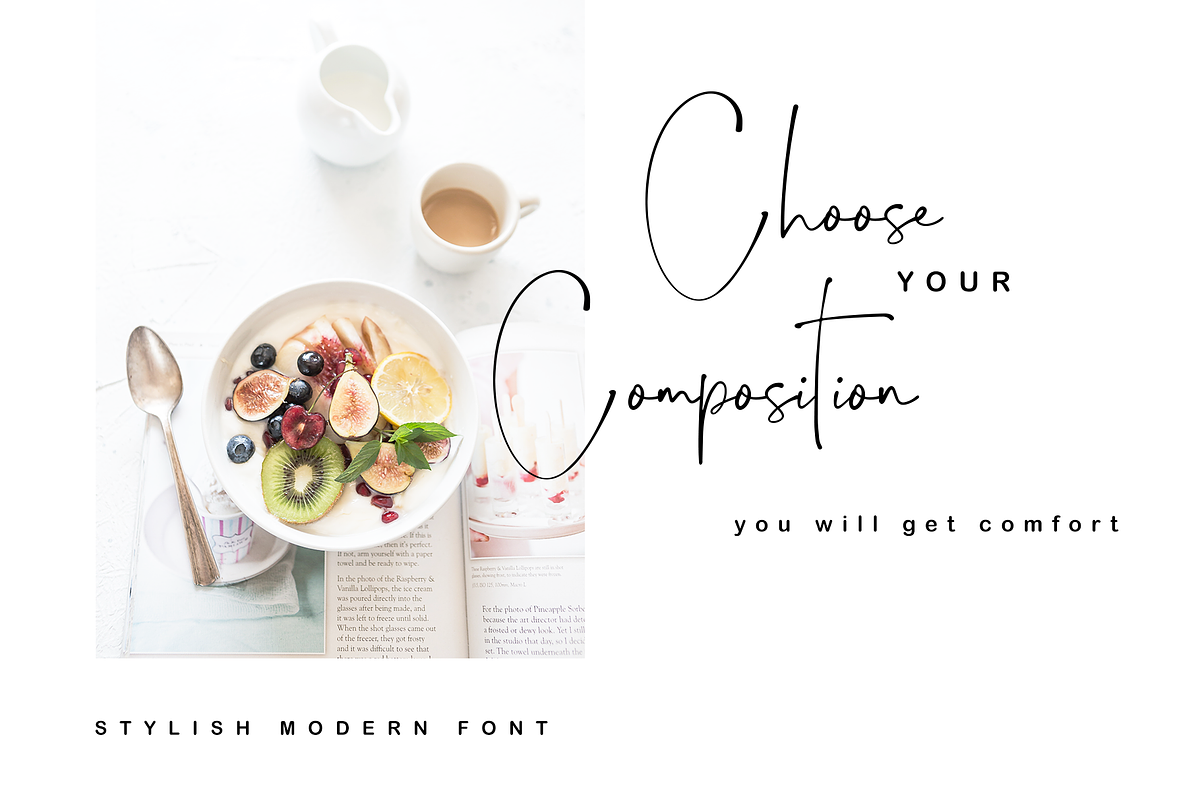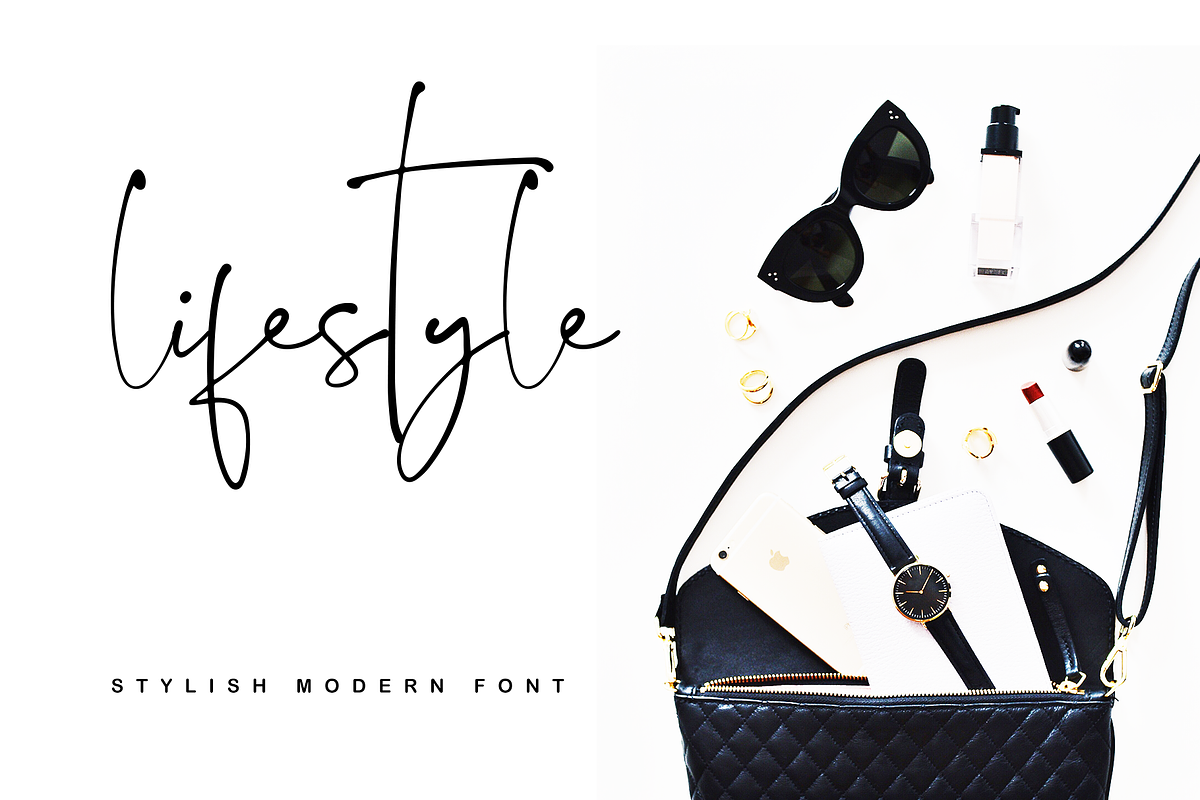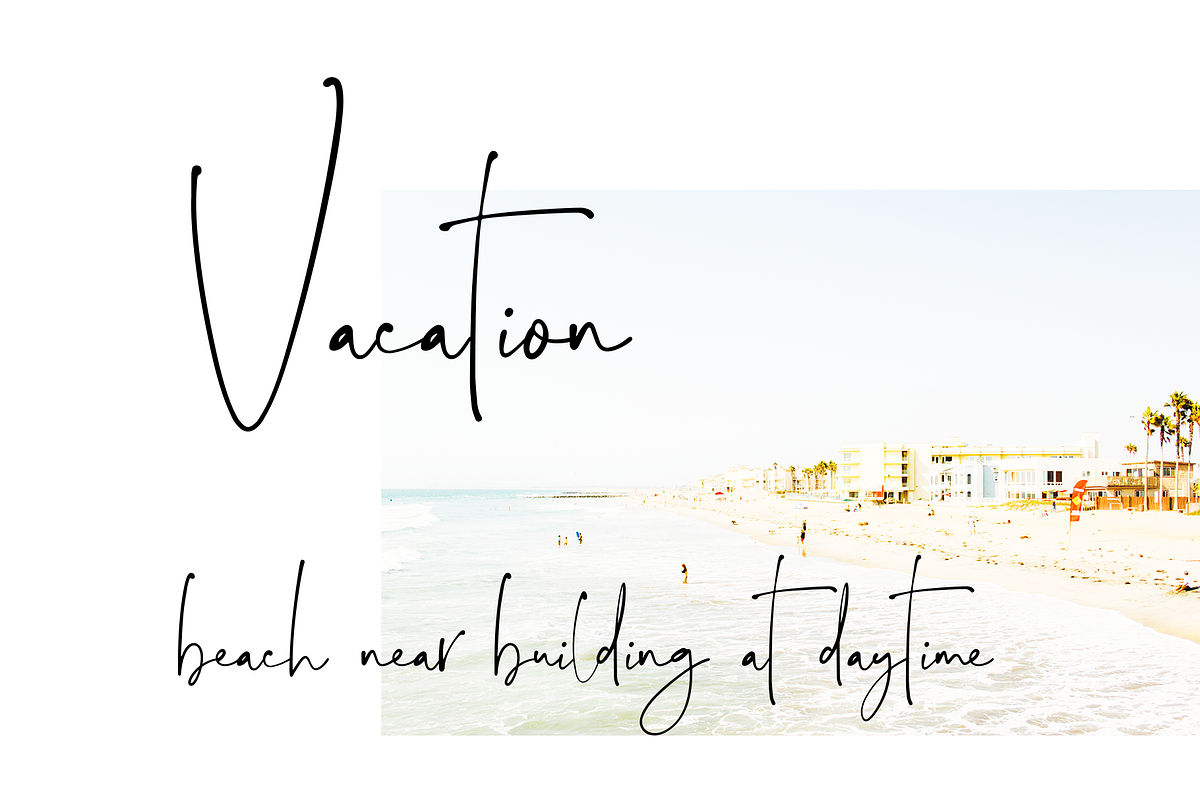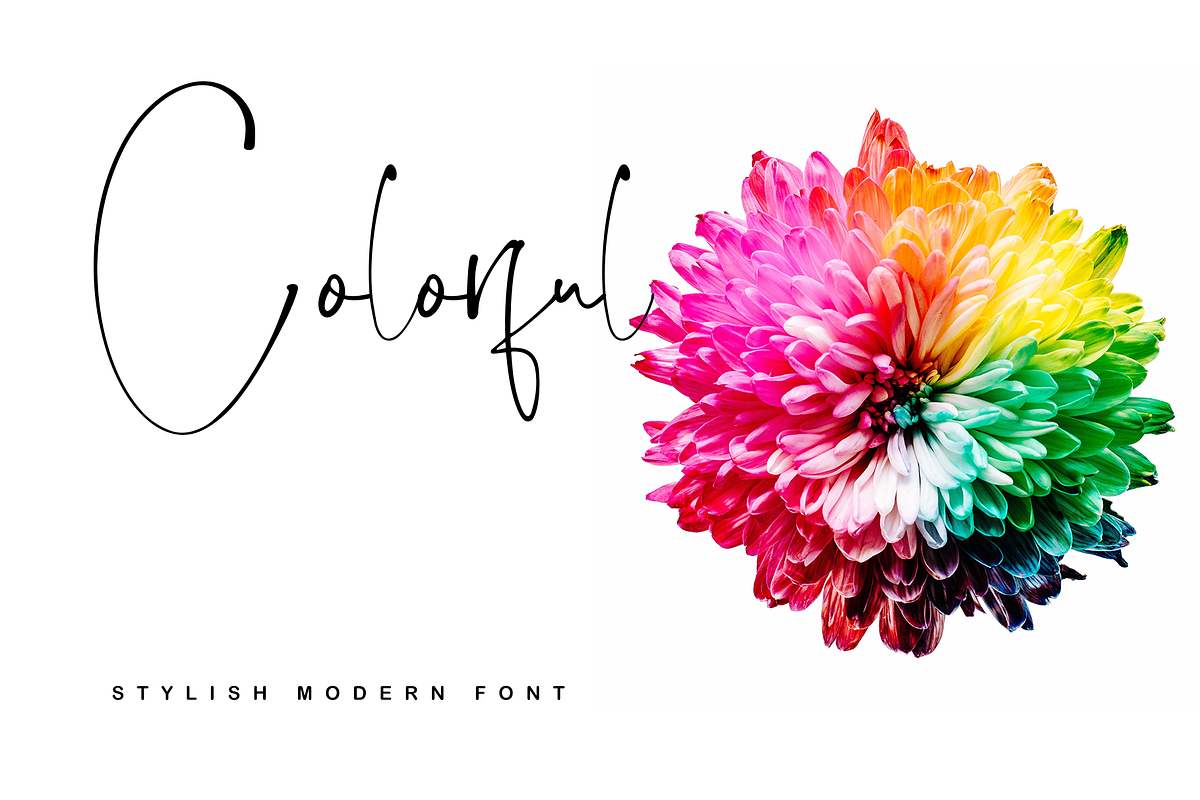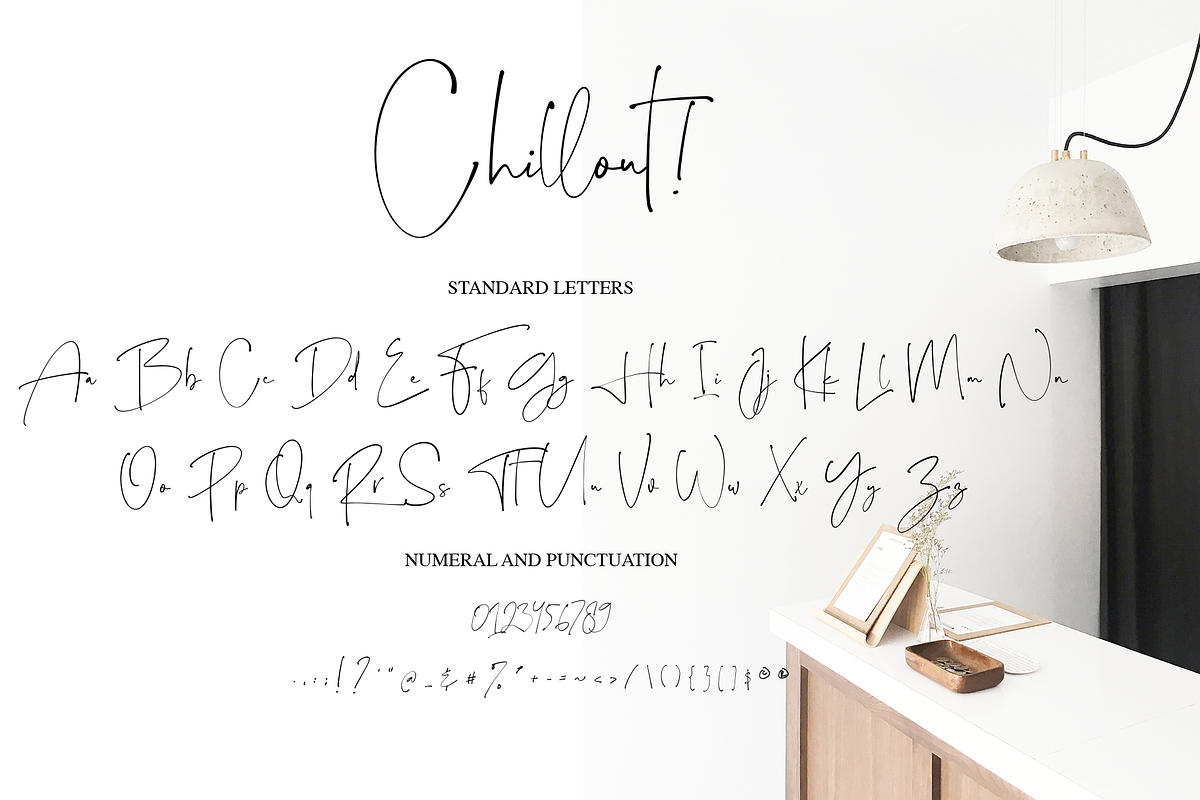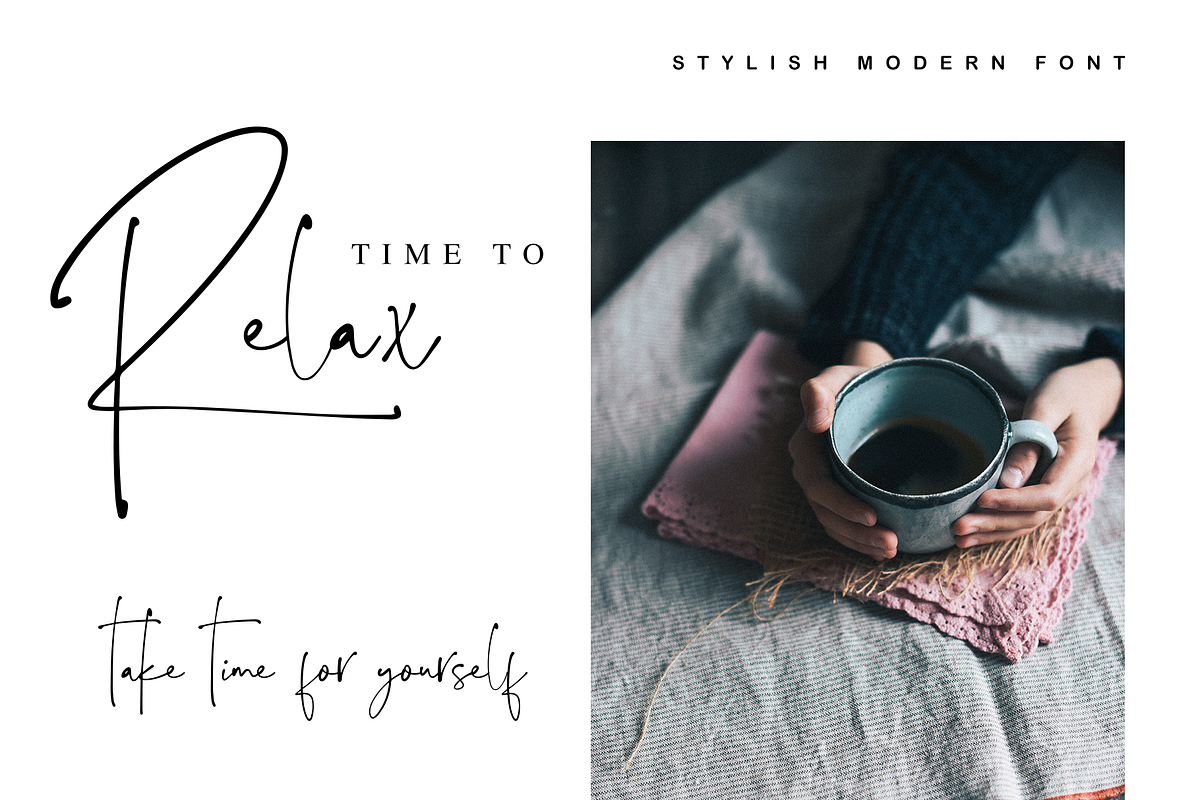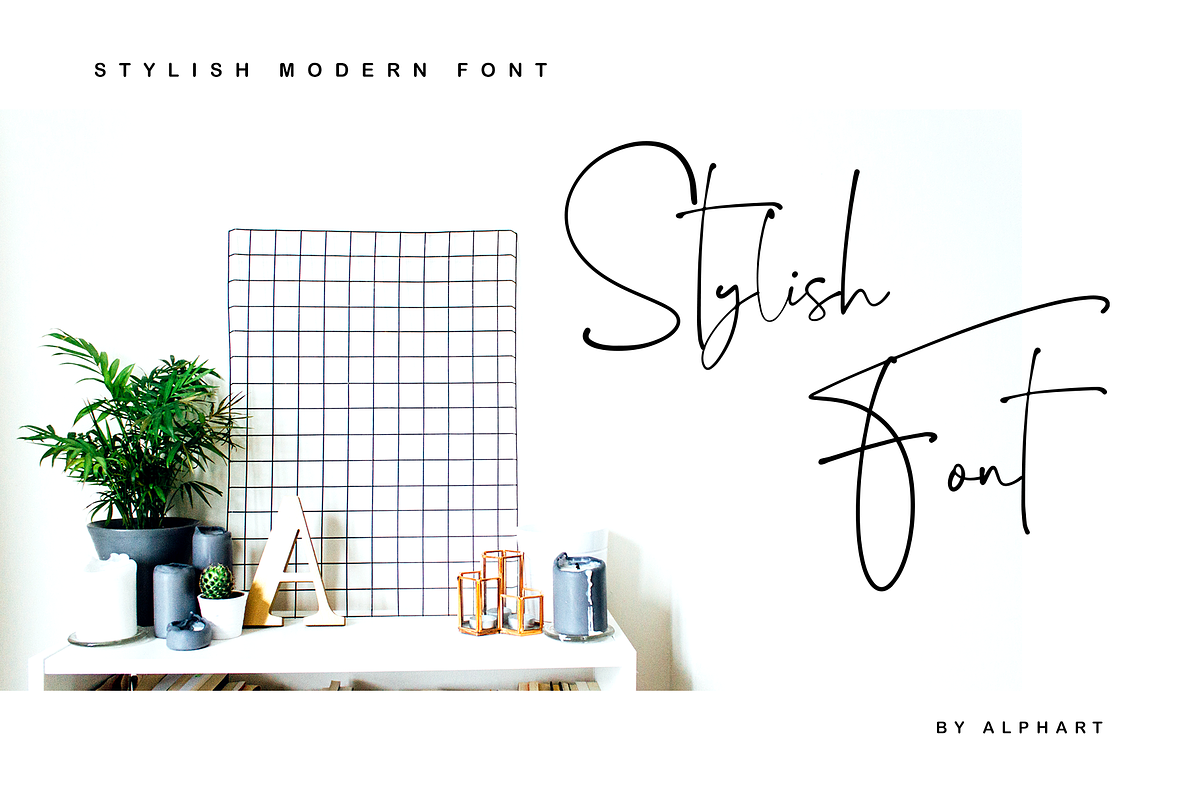
Chillout! - Stylish modern font
Chillout is a handwritten script font with a Gel pen and natural style, this font is great for your next creative projects such as watermark on photography, quotes, album cover, logo, business card, and many other design project.
Chillout comes with uppercase letters, lowercase letters, numbers and punctuation